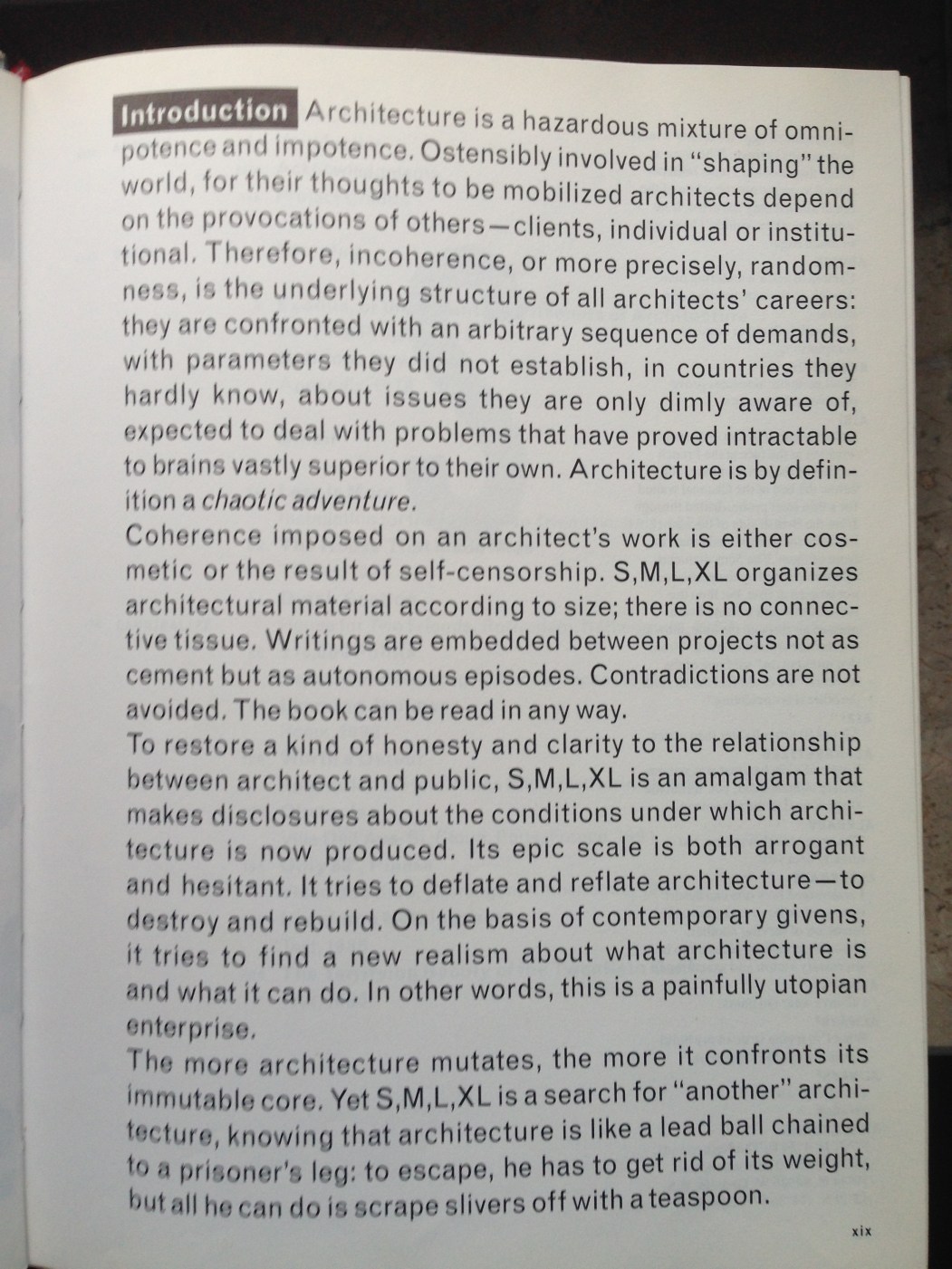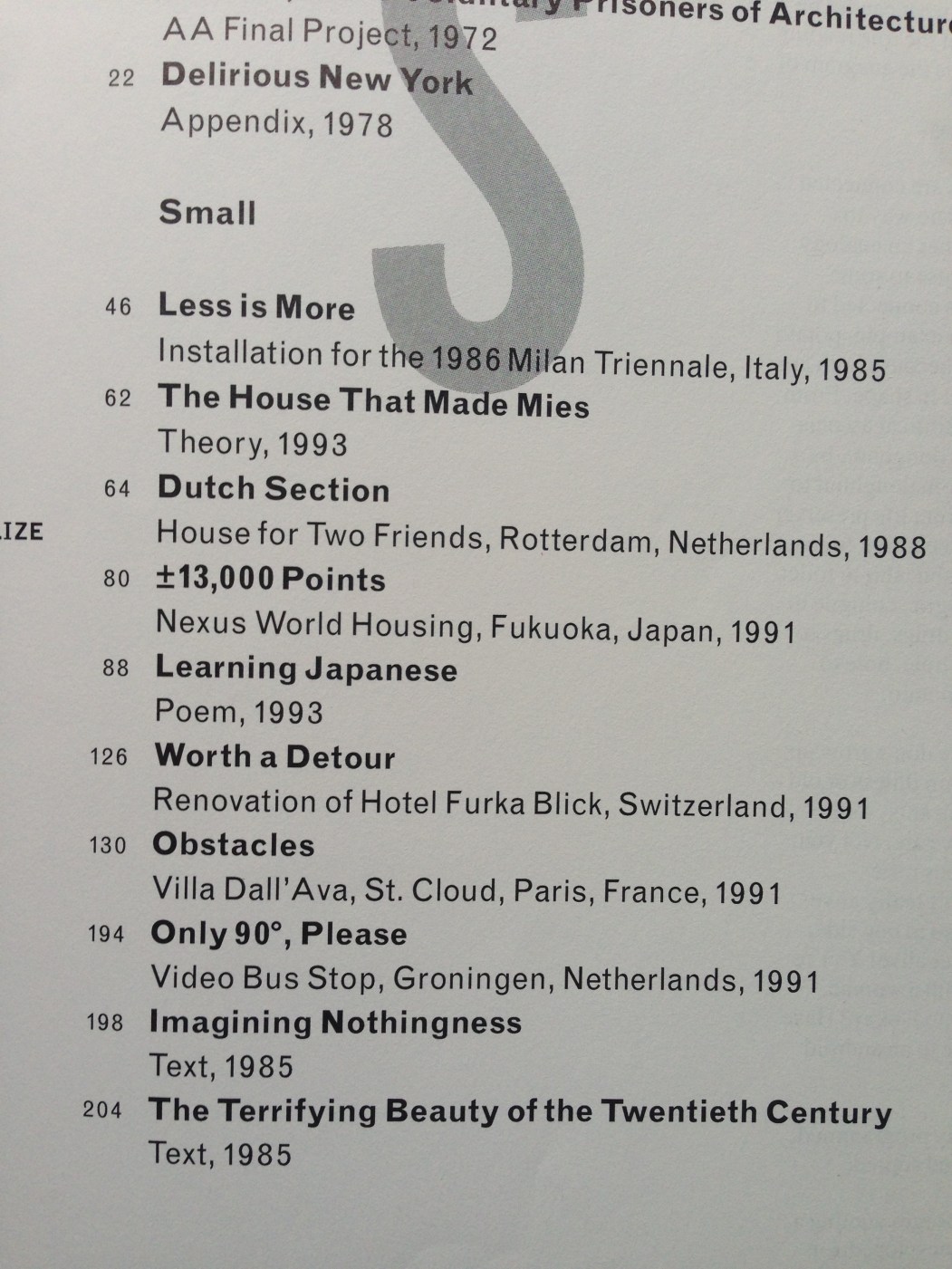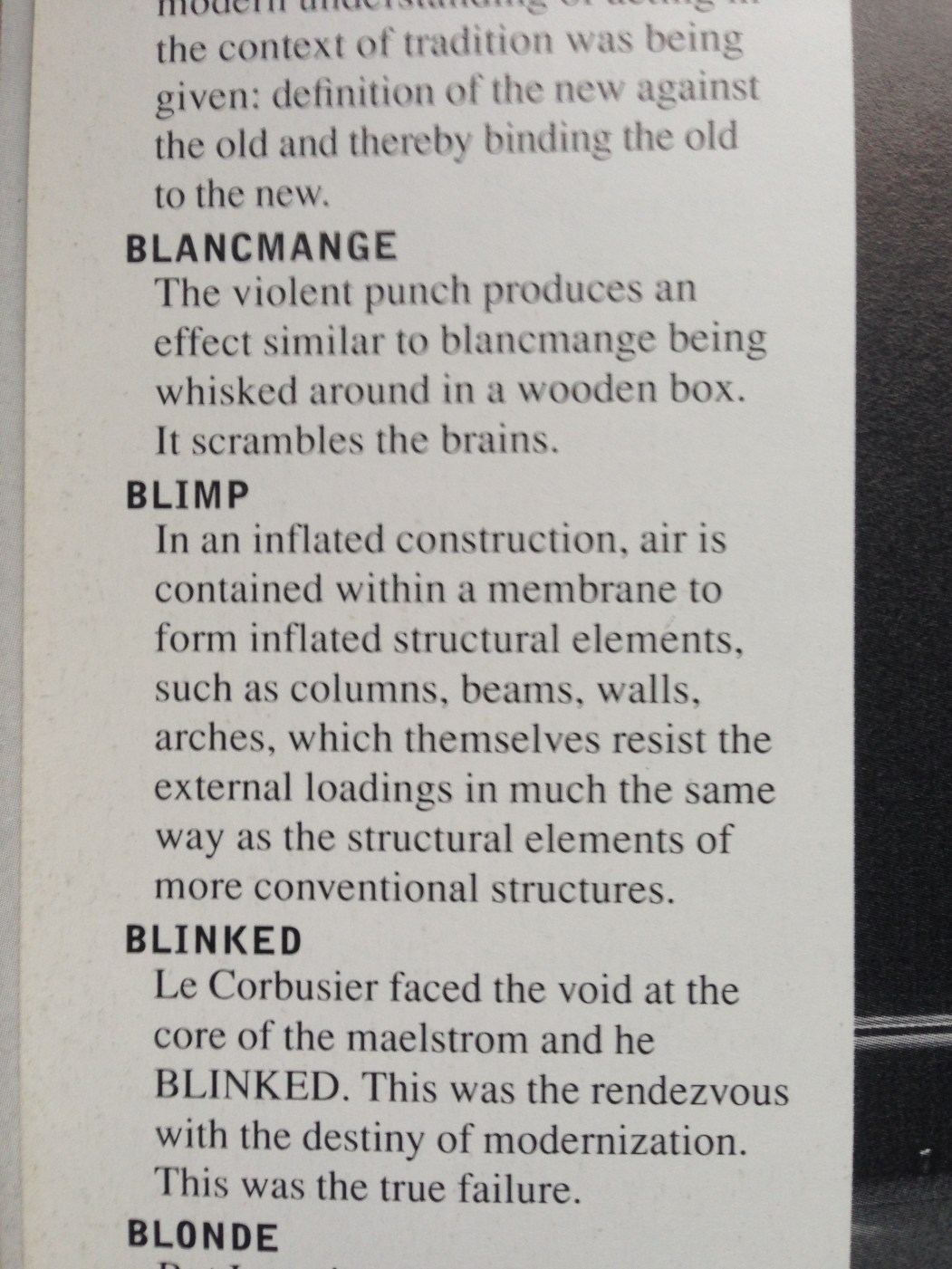
Looking for fonts from the book S, M, L, XL by Rem Koolhaas and Bruce Mau
Can somebody help me identify the fonts on the images?
These are pages from the book S, M, L, XL by Rem Koolhaas and Bruce Mau, 1995.
I know nothing about typography but I guess the font in the images are of three different families: the ones of images 1-2, the ones of images 3-4-5 and the ones of image 6.
I was thinking of Akzidenz Grotesk as a font similar to the one of pages 3-4-5, am I wrong?
The small text almost surely, down to the heavy capitals and incongruously narrow numerals. As for “Dutch Section”, the ascender of |t| doesn’t match Monotype Grotesque or lighter weights of Franklin Gothic either, at least in the digital cuts I could find (also, the joint between curve and stem in |u|h|n| seems a bit steeper).
Similar, but not exactly, to some of the innumerable versions of Akzidenz-Grotesk: